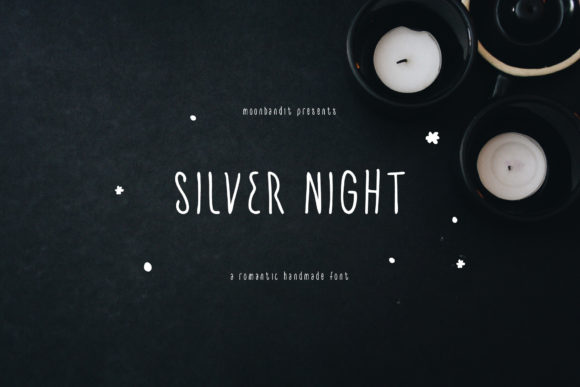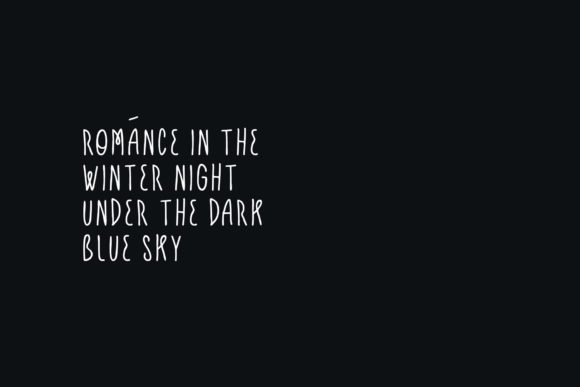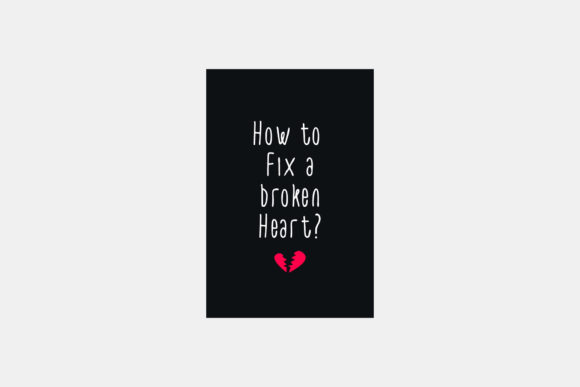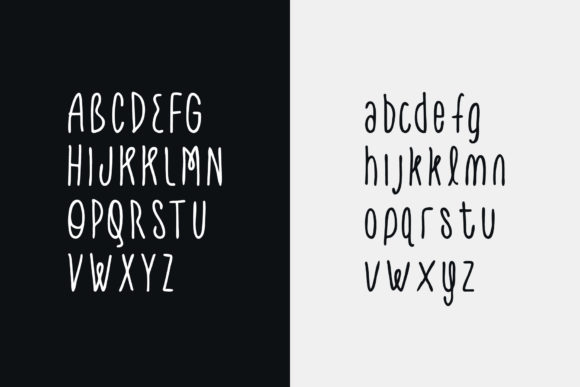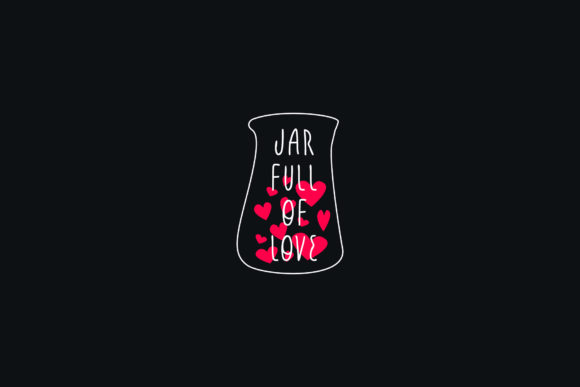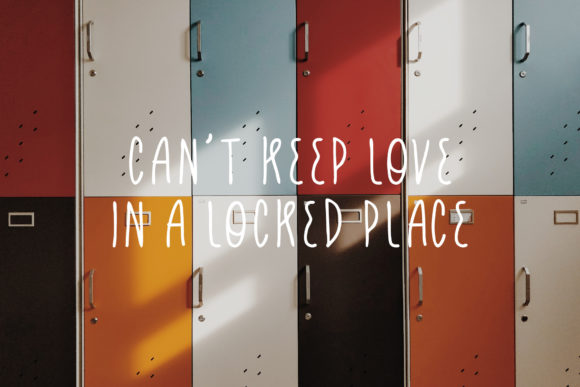
Silver Night Font
About Silver Night Font
Silver Night is a cute, simple, and thin lettered handwritten font that is ideal for chalkboard quotes or teaching materials. With its authentic look and feel, this font brings a personal and realistic touch to your designs.
The cuteness of Silver Night adds a playful and endearing vibe to your projects. Its simple and thin letterforms create a light and whimsical aesthetic. Whether you’re creating chalkboard quotes, educational materials, or any other design related to teaching, Silver Night font enhances the overall visual appeal with its charming and approachable style.
The authentic look and feel of Silver Night make it well-suited for creating a genuine and relatable experience. The handwritten quality of the font brings a personal touch, mimicking the appearance of writing on a chalkboard. This adds a sense of nostalgia and familiarity, creating a connection with the audience.
Silver Night’s versatility and suitability for teaching materials make it a valuable asset for educators and designers in the education field. Its legibility ensures that the information is conveyed clearly, while its handwritten nature adds warmth and character to the designs. It brings an authentic and engaging feel to educational materials, making them more relatable and appealing to learners.
In summary, Silver Night is a cute, simple, and thin lettered handwritten font that adds a personal and realistic touch to your designs. Its authentic look and feel make it perfect for chalkboard quotes or teaching materials. Embrace the charm of Silver Night and let it enhance your projects with its playful and genuine aesthetic.